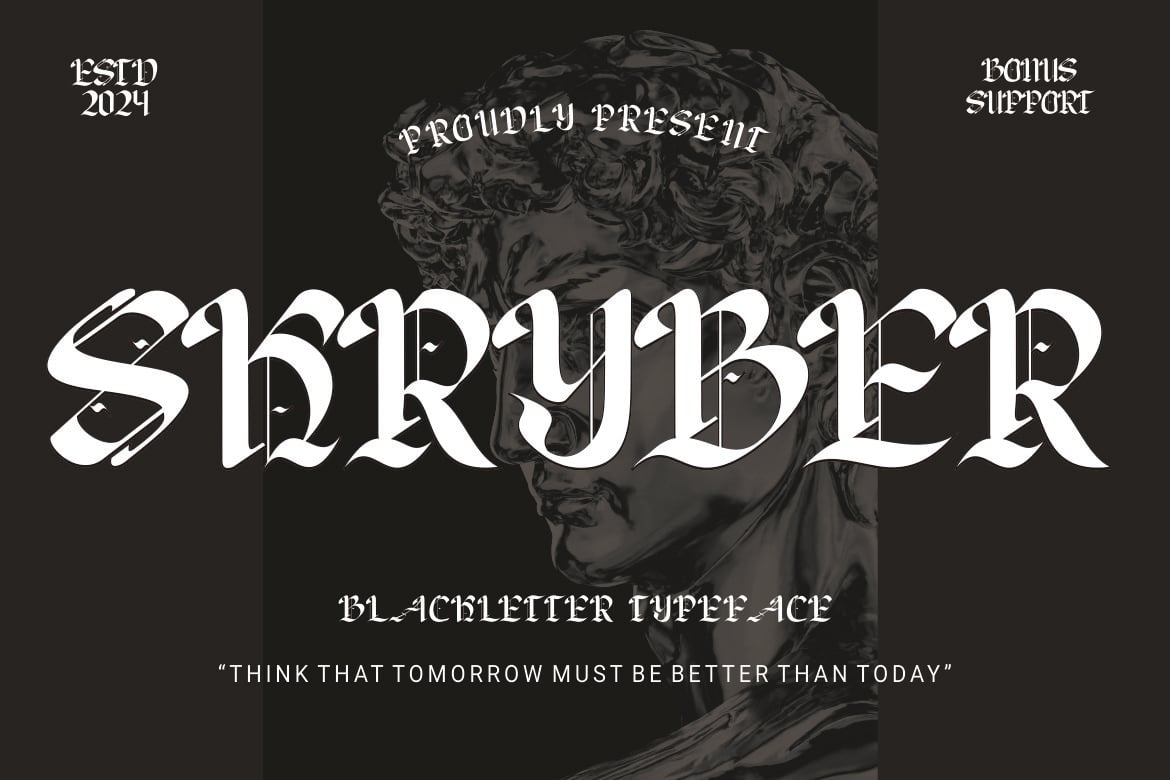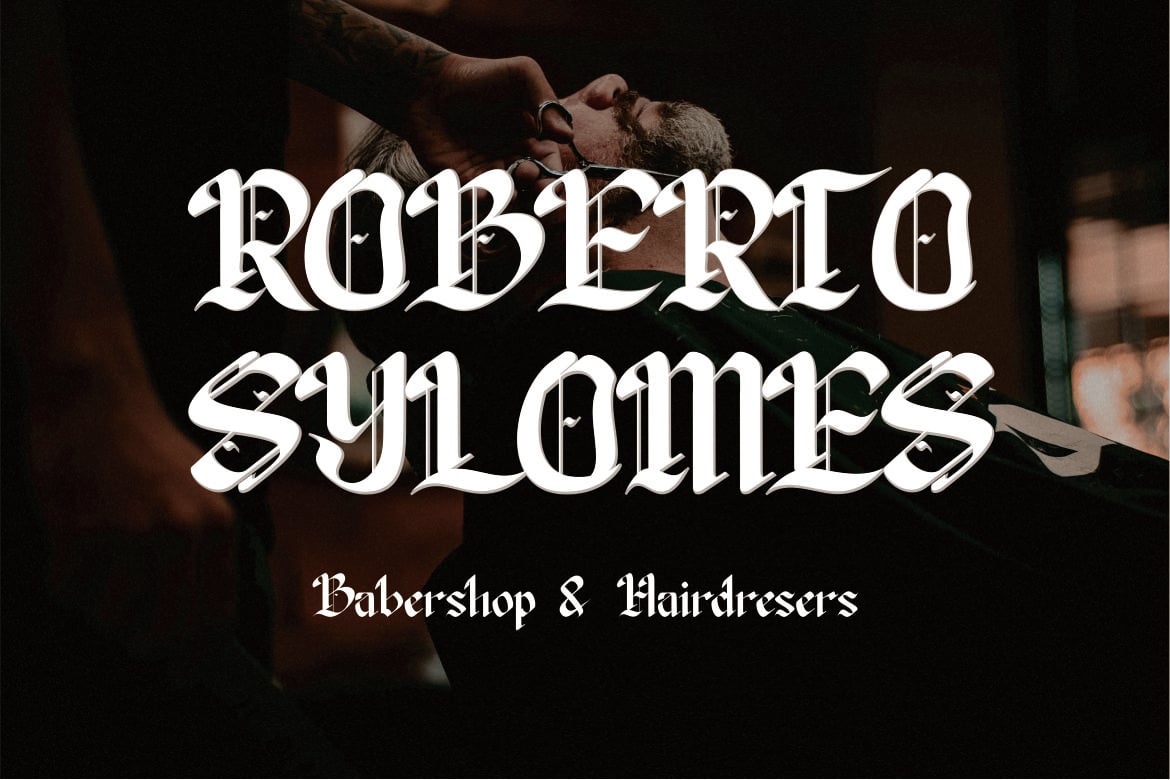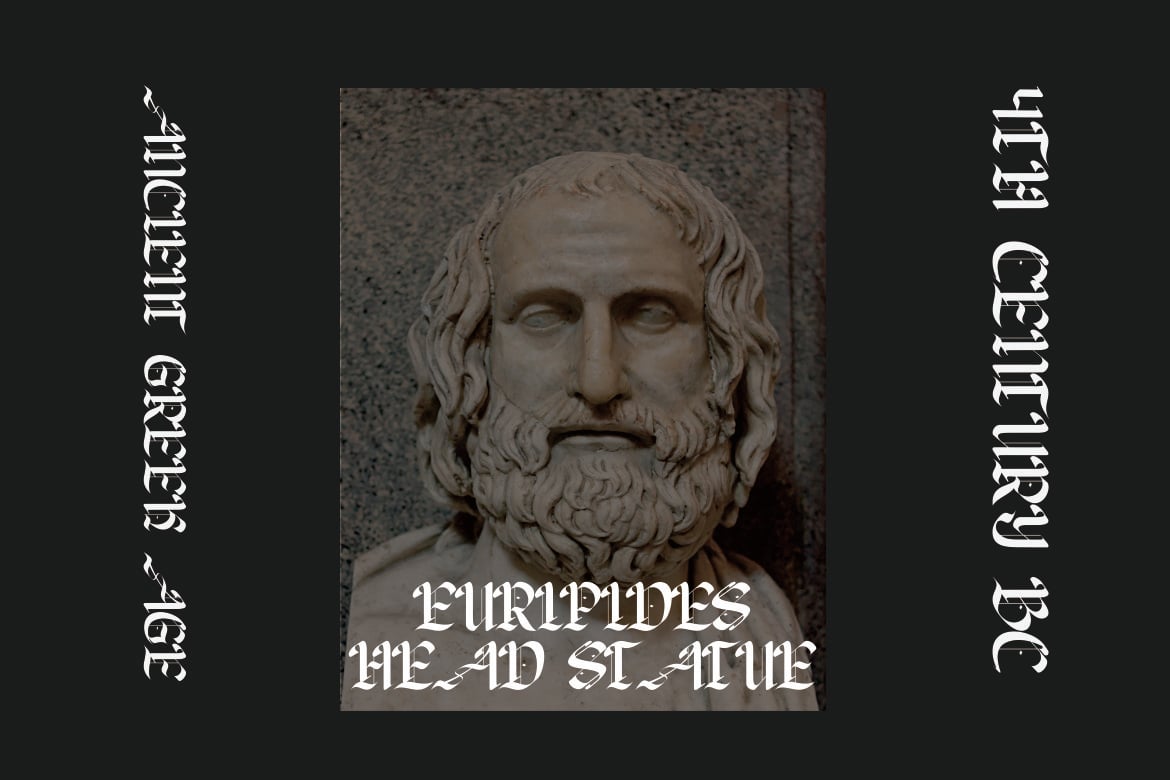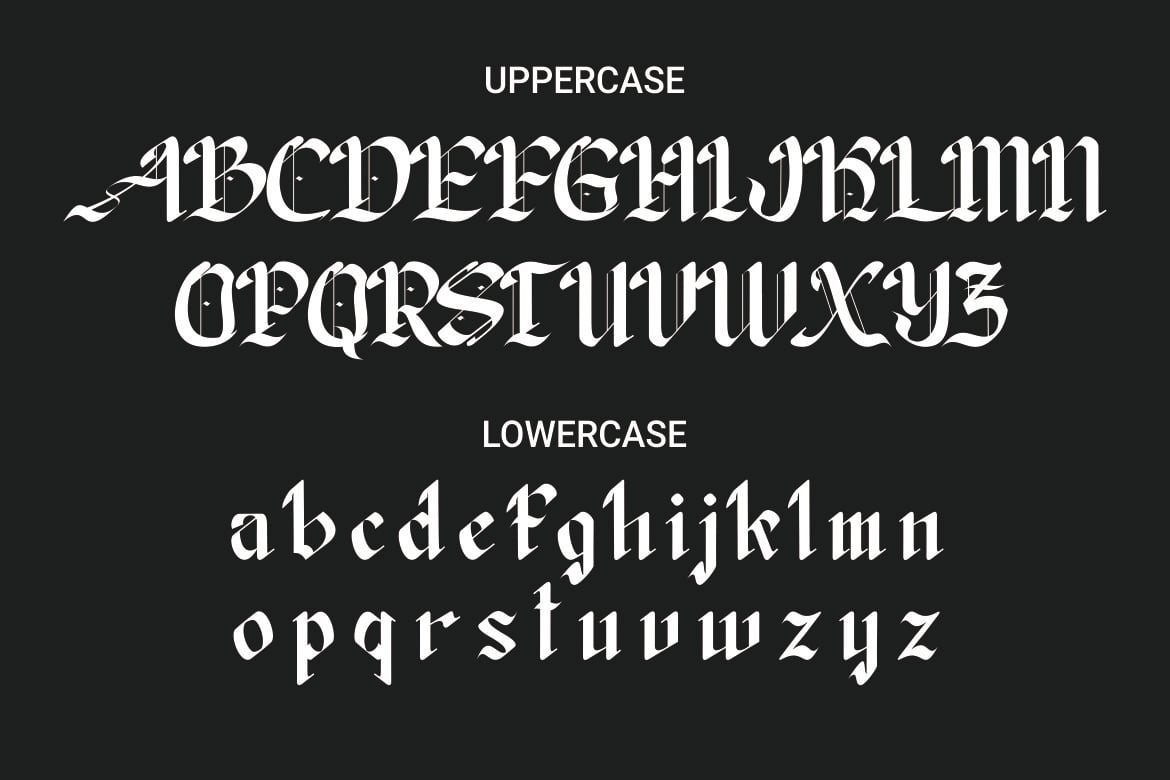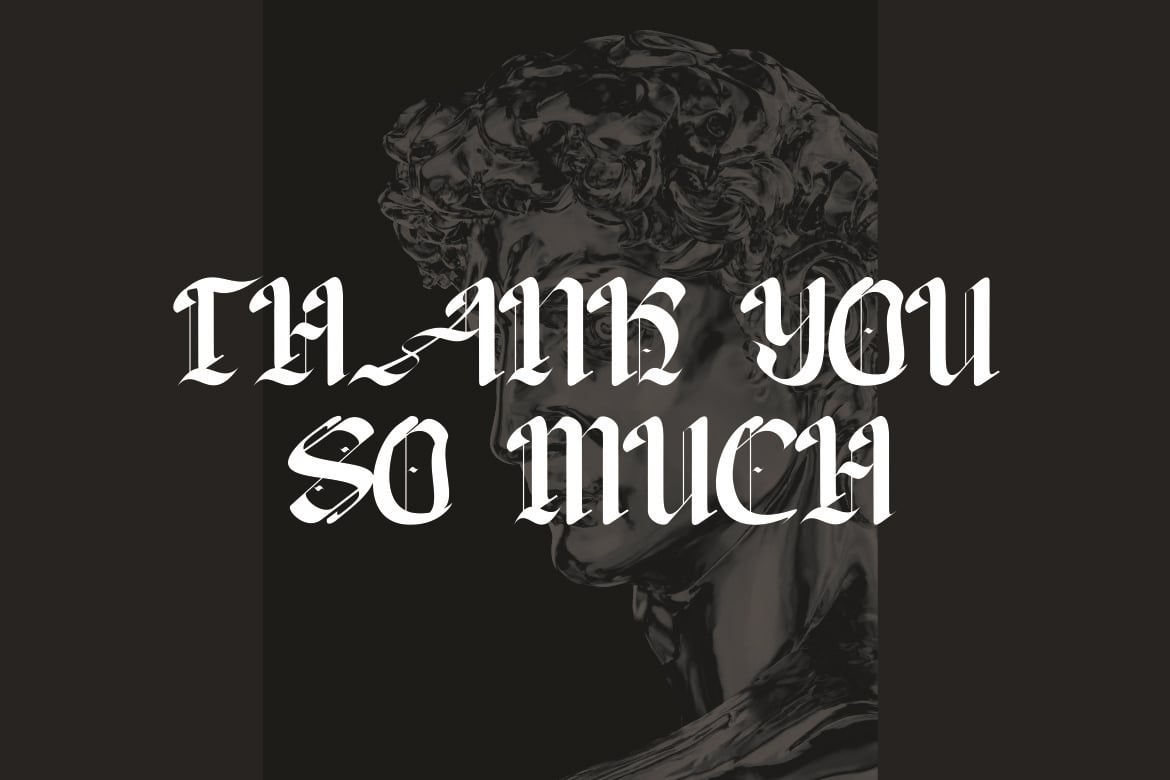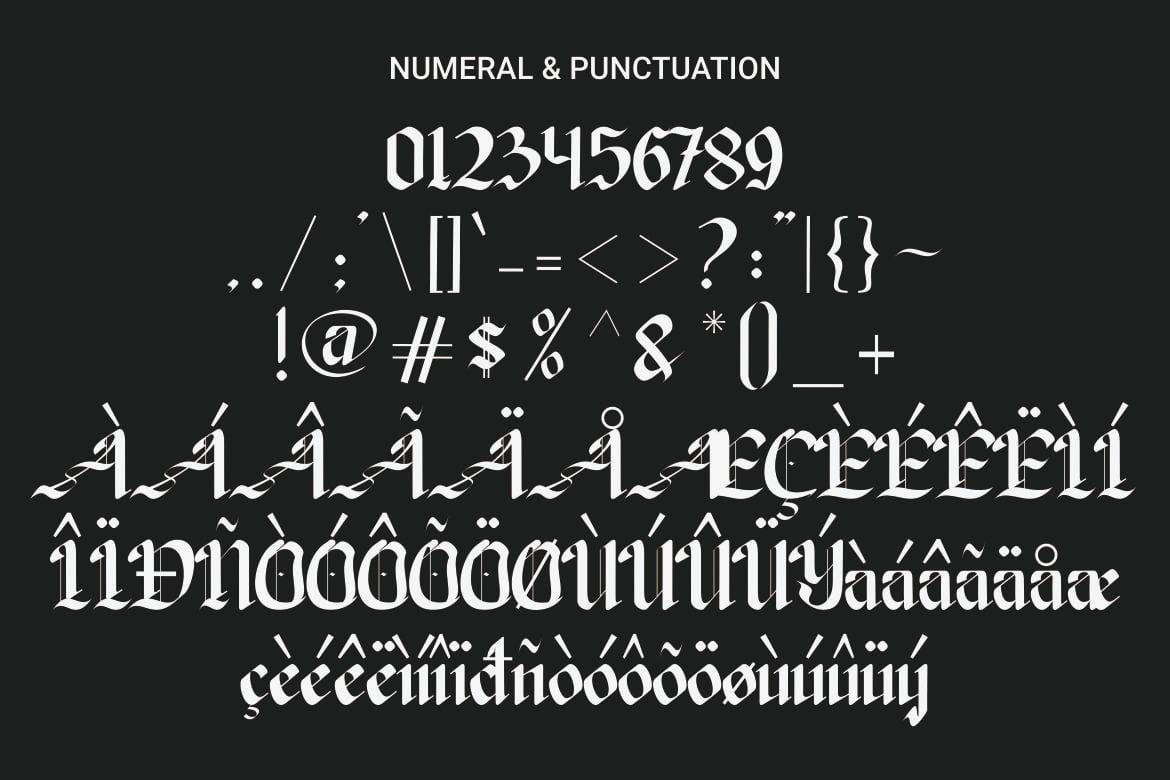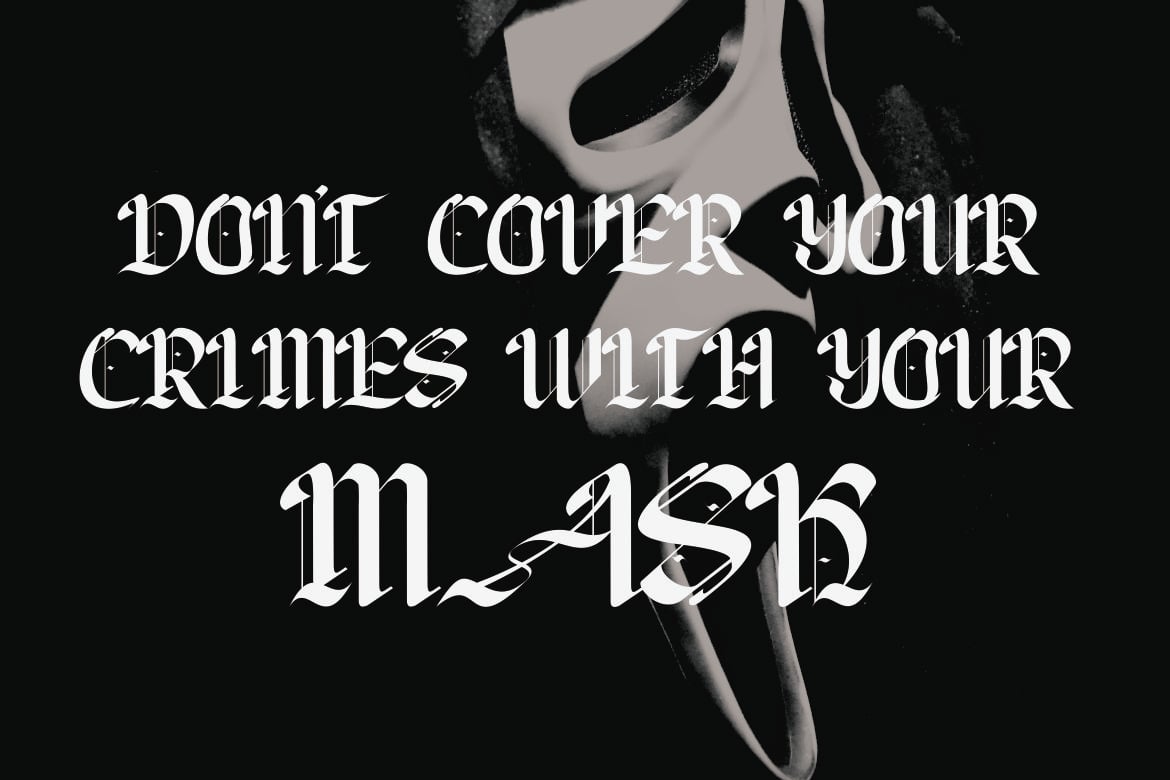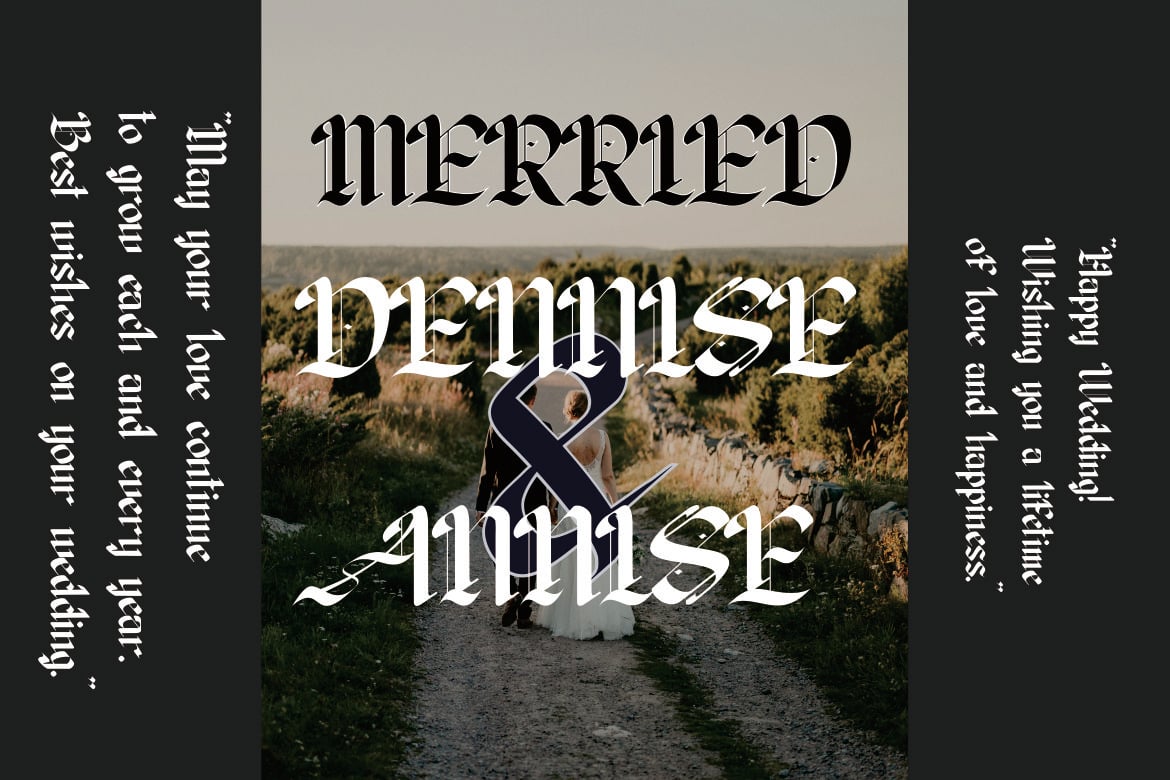
Skryber – Black letter Font
Introducing our new product Skryber – Black letter Font Modern Font
Skryber – Black letter Font – Modern Font is a bold and authentic display font. The font is suitable for any branding project like logo, t-shirt printing, esport, and many more. outstanding in a wide range of contexts.
- lowercase
- multilingual